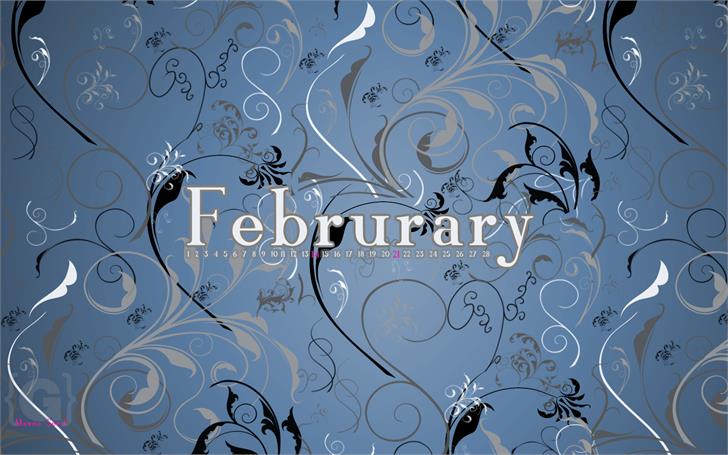
Free MAWNS\' Serif Font
Download and enjoy this free mawns\' serif font. Cool typeface to showcase your designs in a modern way. Go give some love to Font Space for creating this top-notch typeface. This is absolutely fancy font so you can easily make world-class designs.